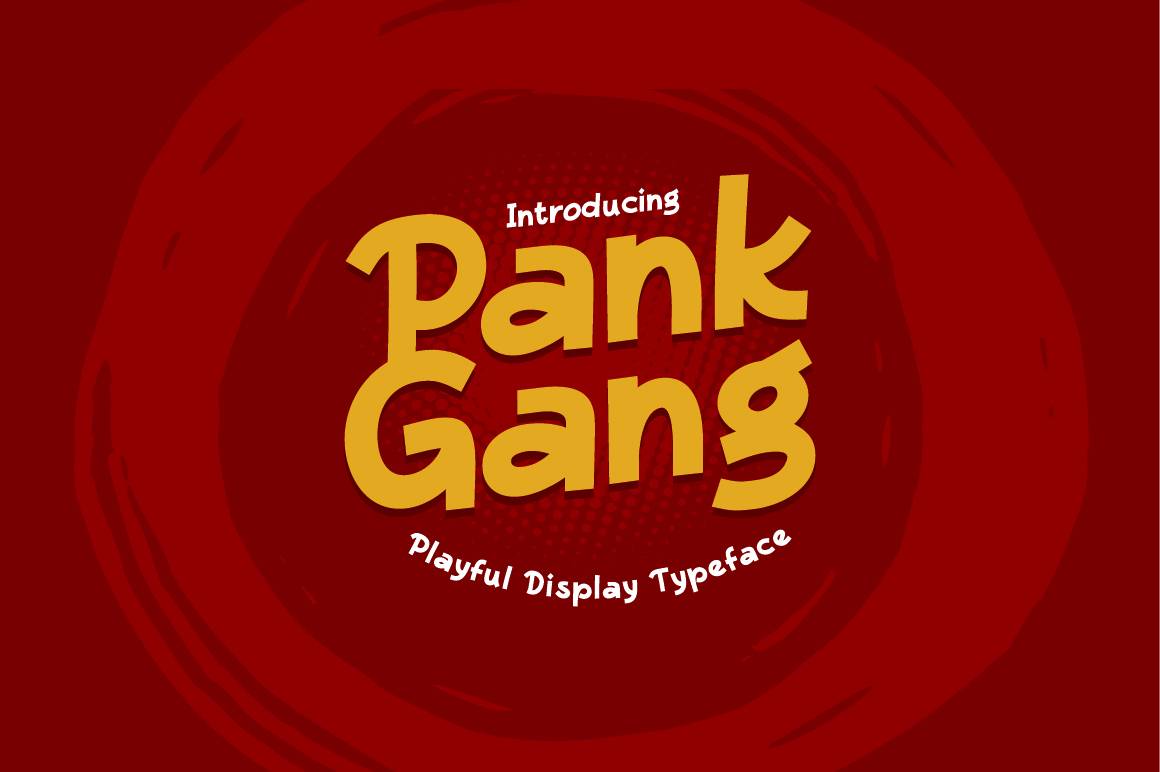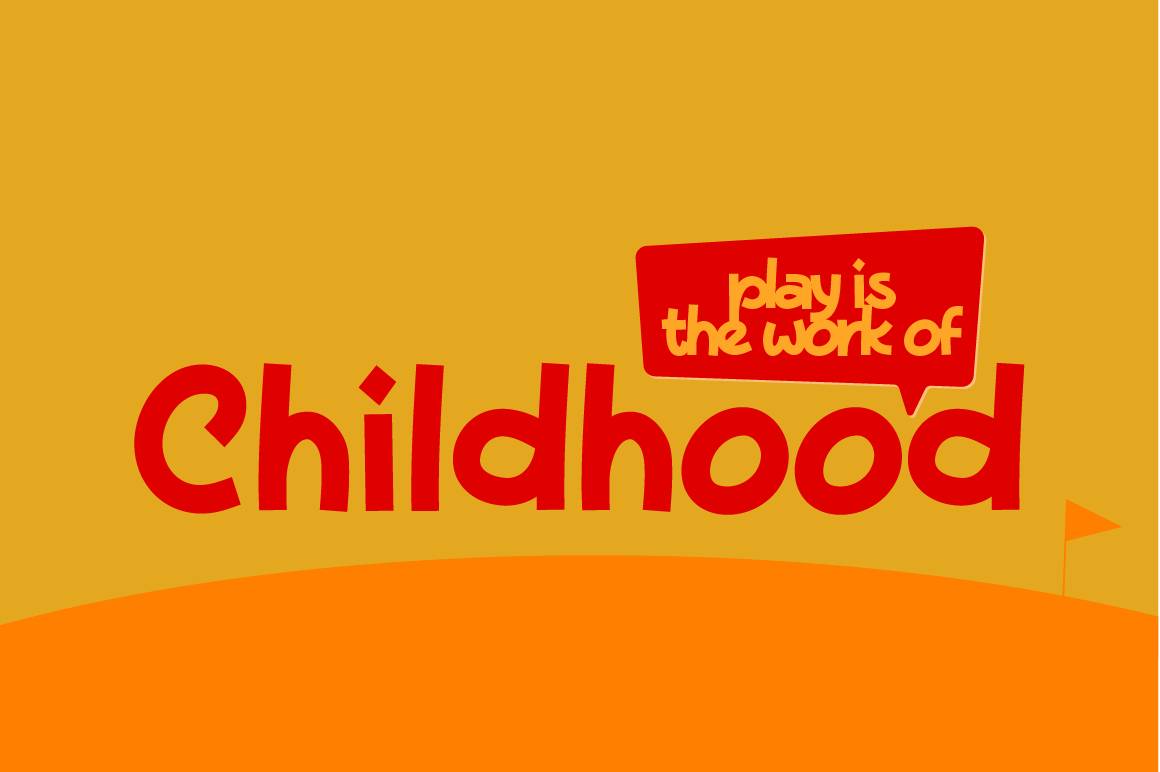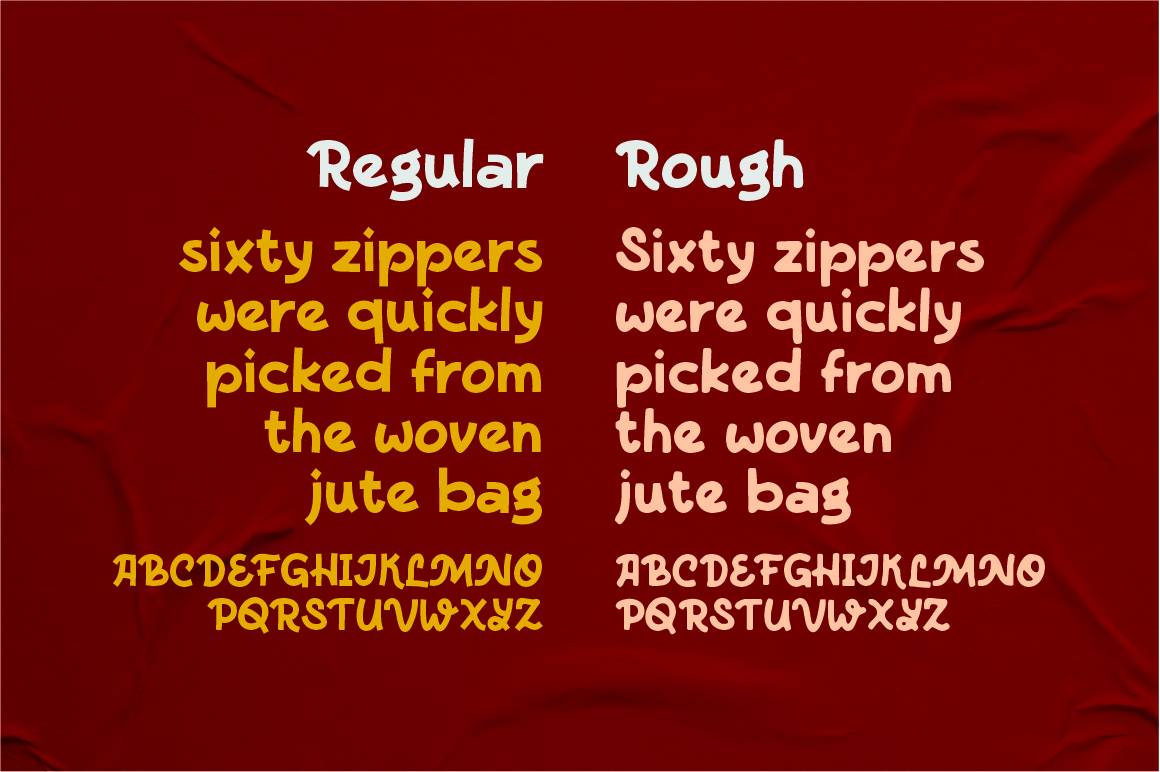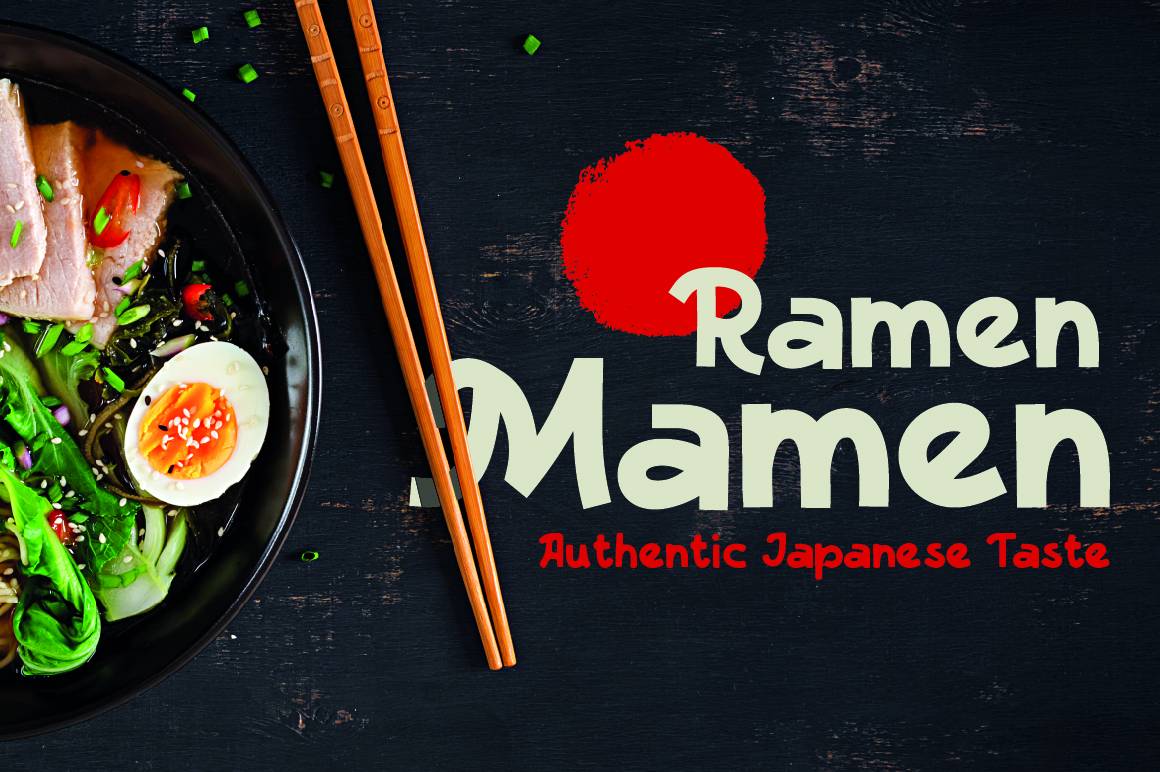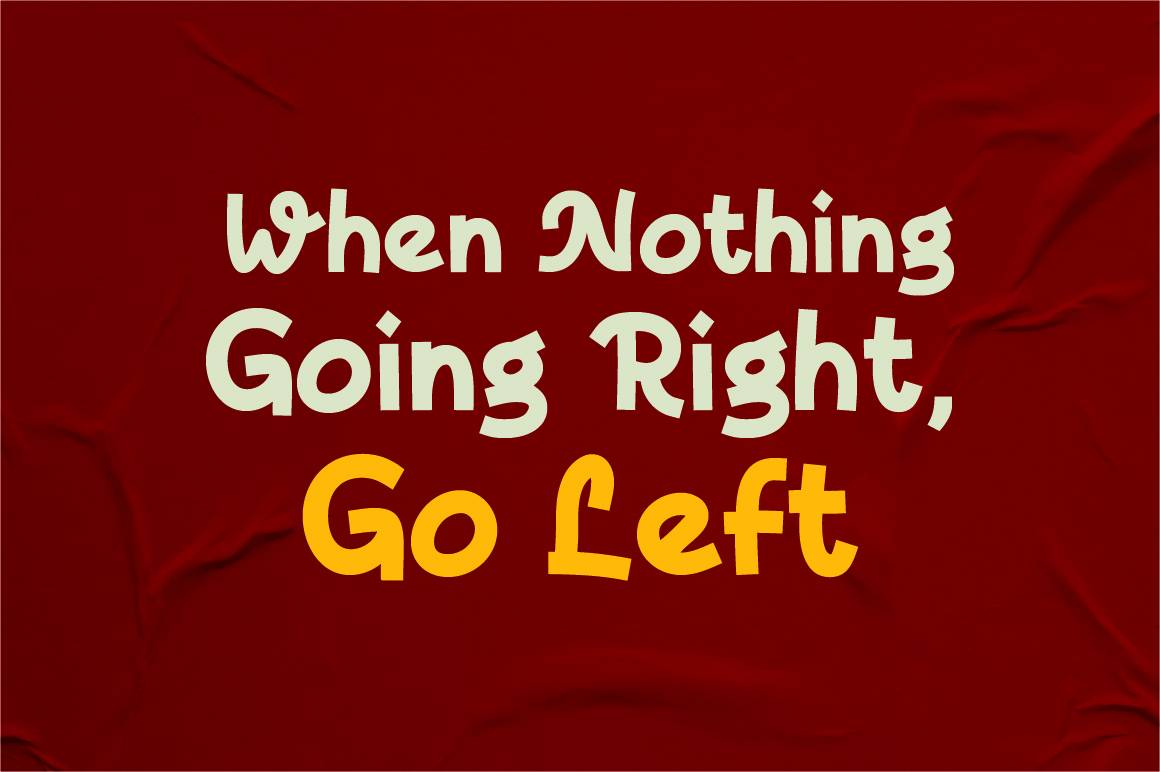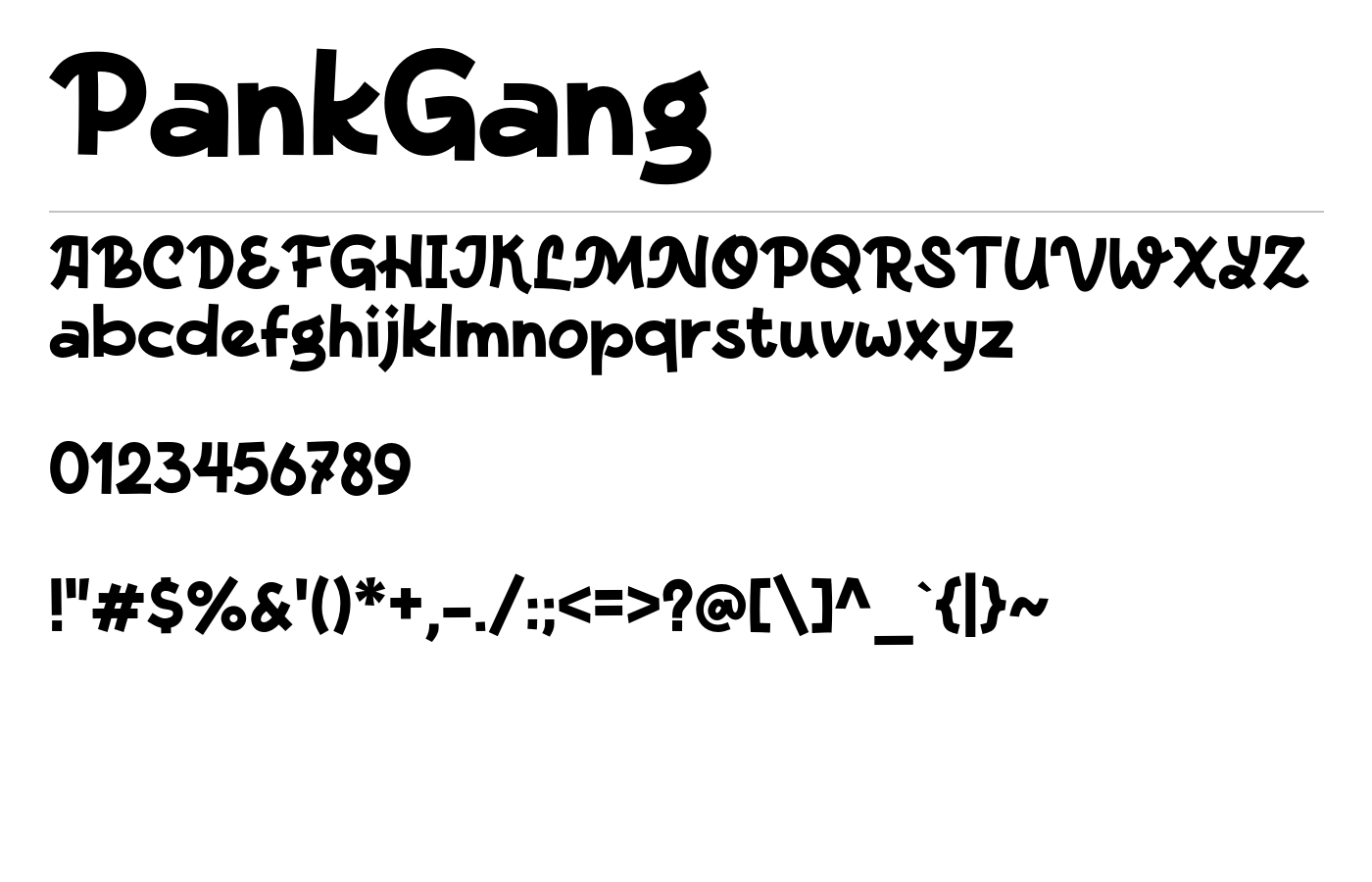
PankGang is a bold, playful sans serif font with a unique, slightly quirky character style that combines both uppercase and lowercase forms with a lively, fun spirit. Its rounded and uneven strokes give it a hand-crafted, informal feel, making it perfect for creative projects, children's content, or any design seeking an approachable yet distinctive personality. This font works best in headlines, packaging, and branding where a cheerful and energetic vibe is desired.
PankGang Font
About PankGang Font
| Font family | PankGang Font |
| Release date | 2022-06-17 |
| Designer | Herbanu Tri Sasongko |